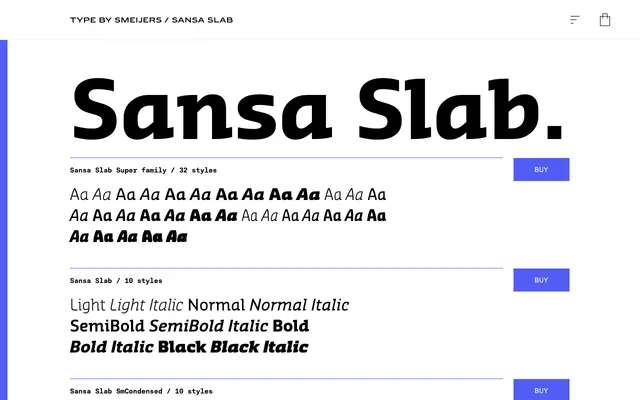
Sansa Slab
A 32-style slab serif superfamily spanning three widths and six weights, with UltraBlack reserved for the Condensed cut.
The family runs across three widths — standard, SmCondensed and Condensed — each with a full italic complement and OpenType features including small capitals, oldstyle figures, tabular figures and fractions. The Condensed subfamily extends furthest in weight, reaching UltraBlack, making it the go-to cut for high-impact display settings. Comprehensive figure and case-sensitive options give it practical range across editorial, publication and identity work.
A slab serif superfamily with structured, upright letterforms and consistent stroke weights typical of geometric slab designs, offered across three width variants and a broad weight range.